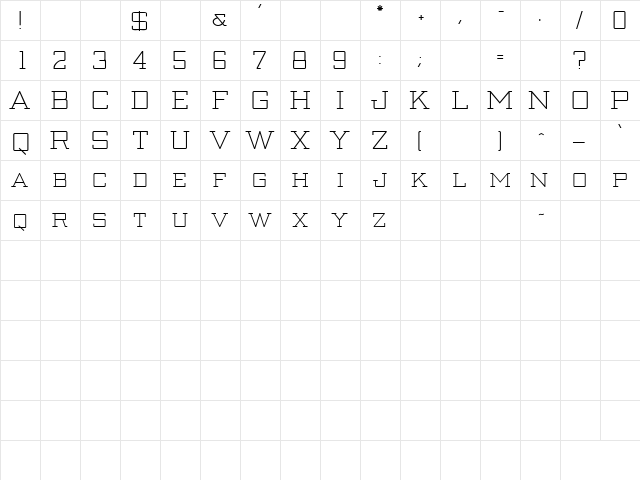
GE Acorn Block Caps Regular Font Preview
GE Acorn Block Caps Regular
Design Context for GE Acorn Block Caps Typeface
GE Acorn Block Caps offers clean, dependable letterforms without strong stylistic allegiance, making it a practical choice for designers who need flexibility.
Pro Tip: Use GE Acorn Block Caps in both headline and body roles to test its range before committing to a single application.